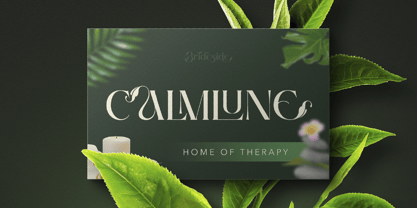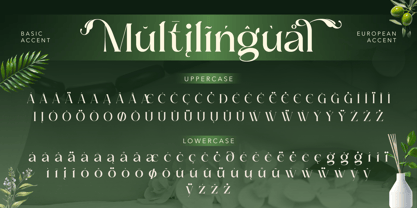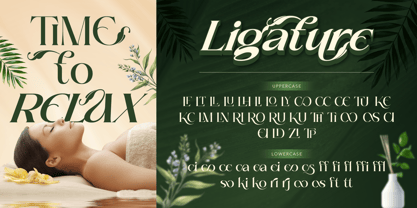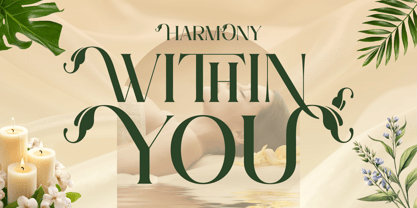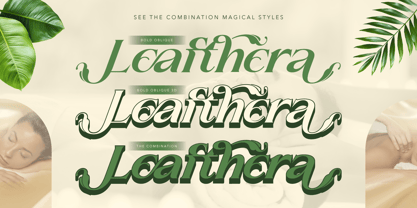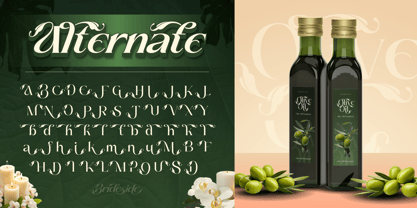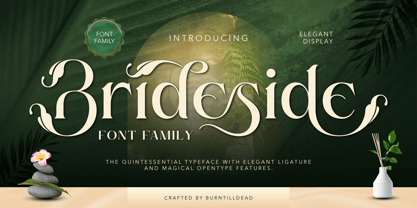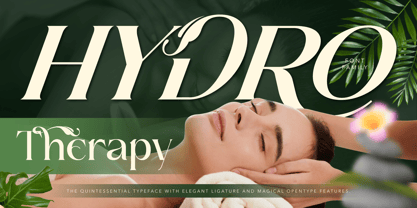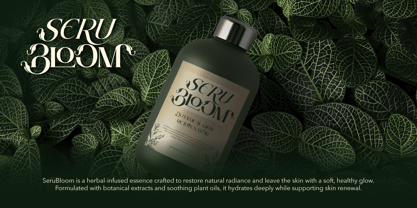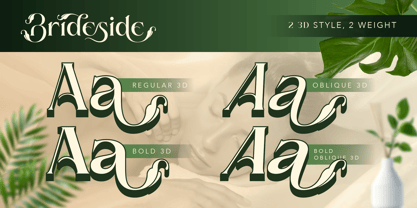
Brideside
The Brideside Font Family was designed by Eric Kurniawan and published by Burntilldead. Brideside contains 8 styles and family package options. More about this family
Brideside is an elegant display serif font family with graceful curves and a distinctive botanical touch. Its unique alternates feature subtle leaf-inspired details, adding a natural and organic feel to the typography. Designed to look soft, romantic, and luxurious, Brideside works beautifully for calm and elegant visuals. The font comes with multiple styles including Regular, Bold, Oblique, and 3D styles, along with elegant ligatures and alternates to create stunning combinations. Perfect for wedding designs, spa & wellness branding, beauty products, luxury packaging, editorial layouts, and nature-inspired brands. Features: A - Z set (Uppercase & Lowercase), Number, Punctuation, Alternates, Ligatures, Multilingual